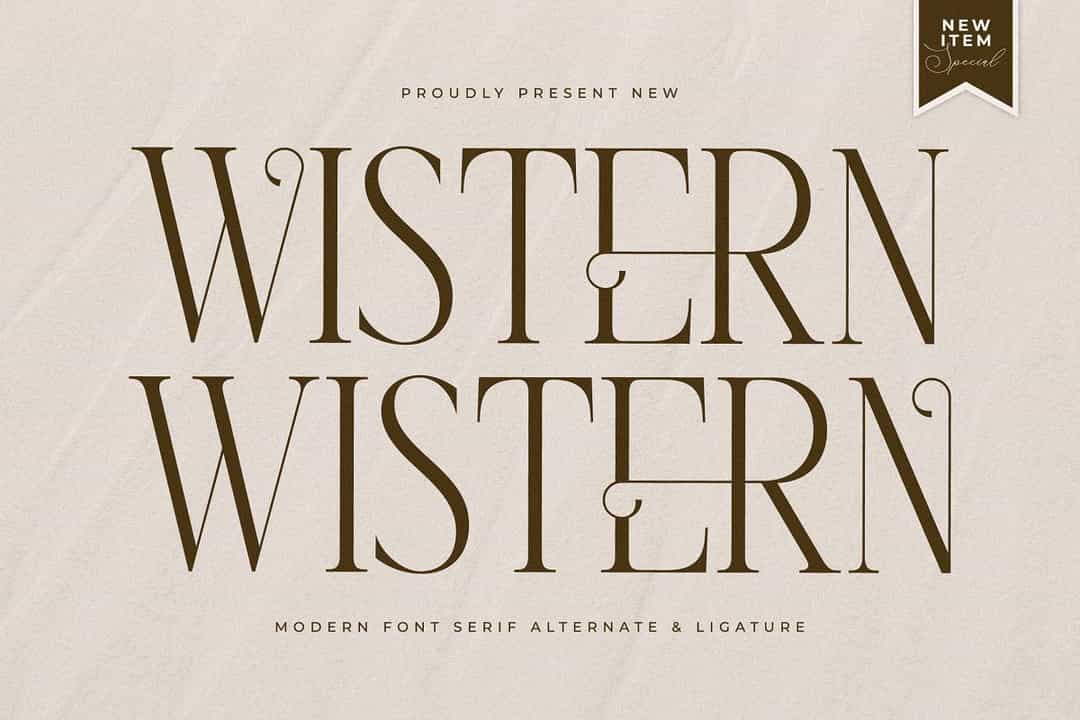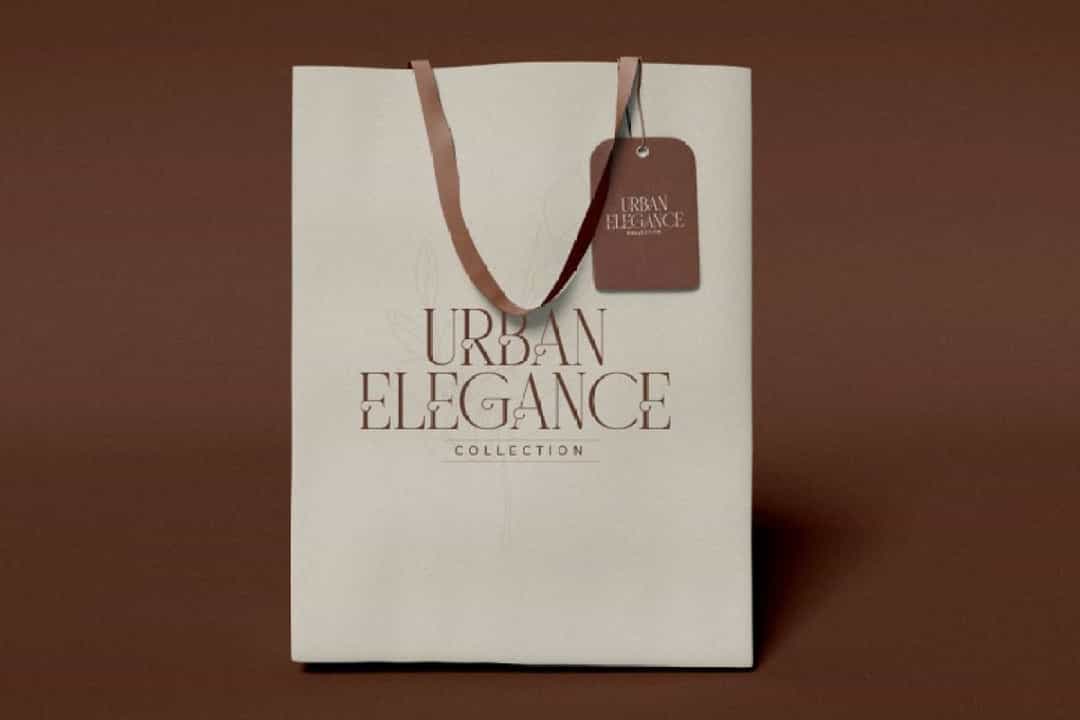
Wisternis an elegant and timeless serif typeface that stands out due to its distinct style and modern appearance. Ideal for creating classy logos, movie titles, book titles, fashion brands clothes letters quotes or quotes this typeface makes a striking first impression in any setting.